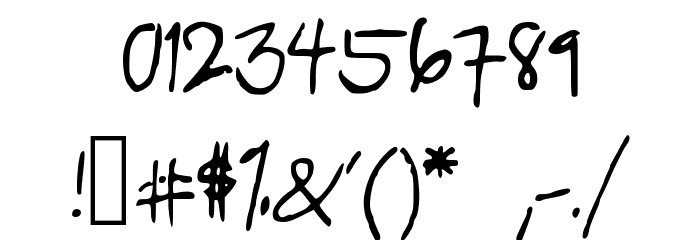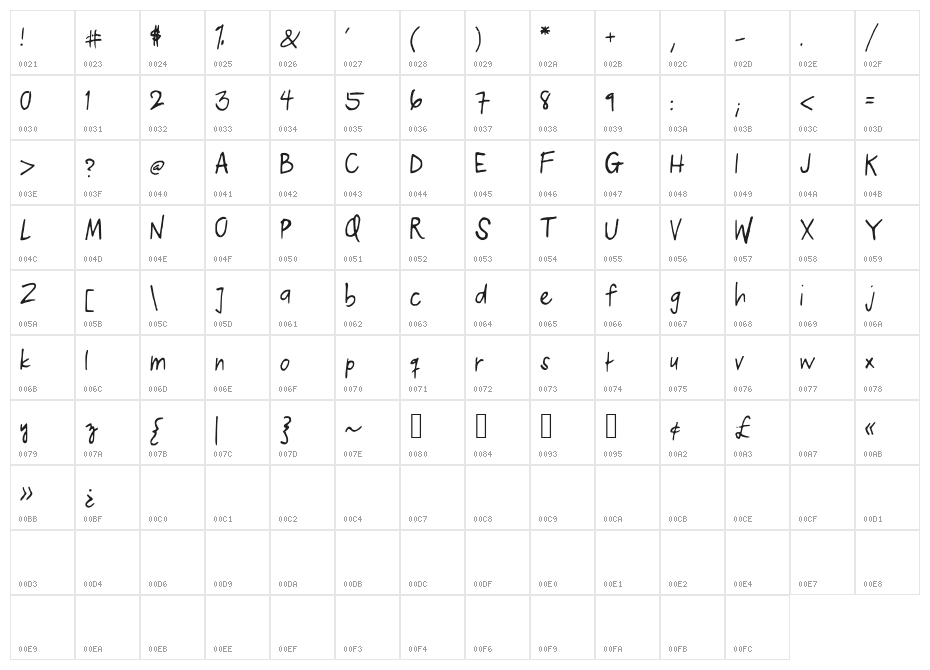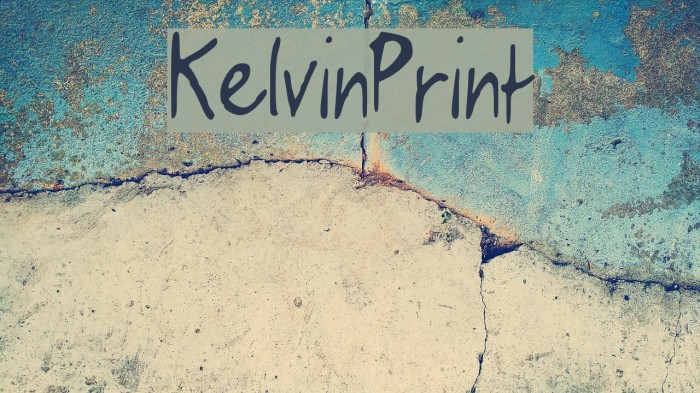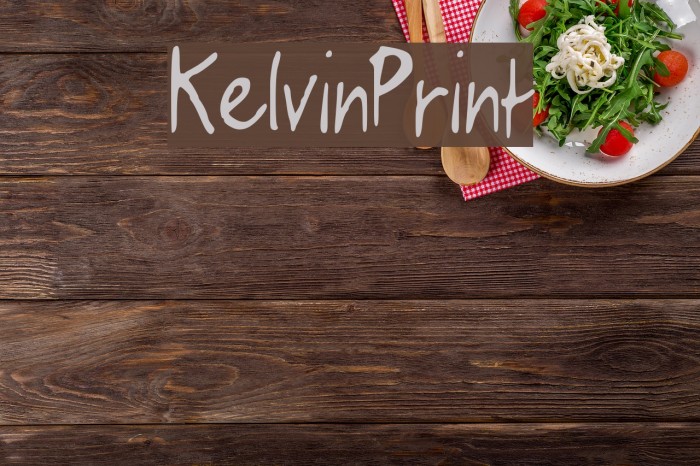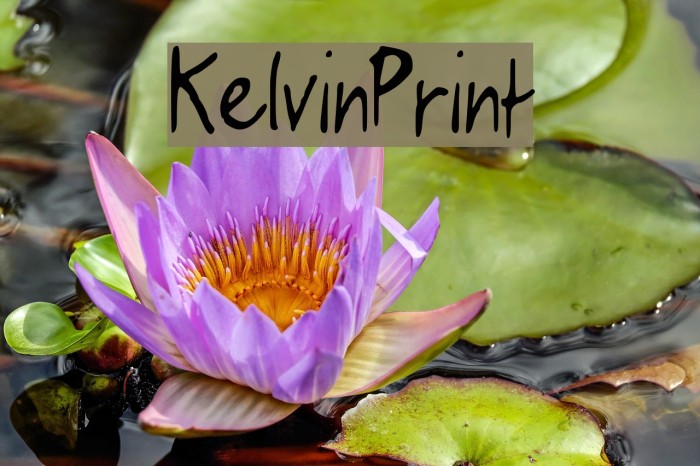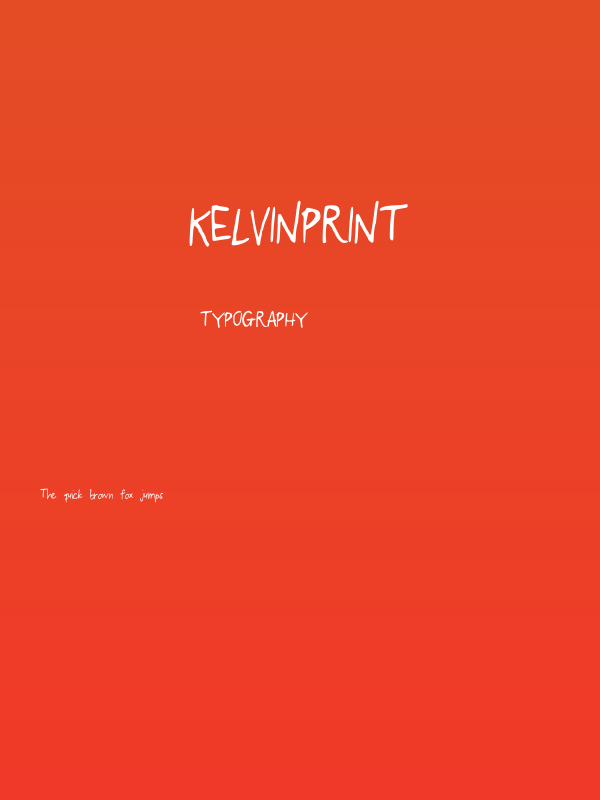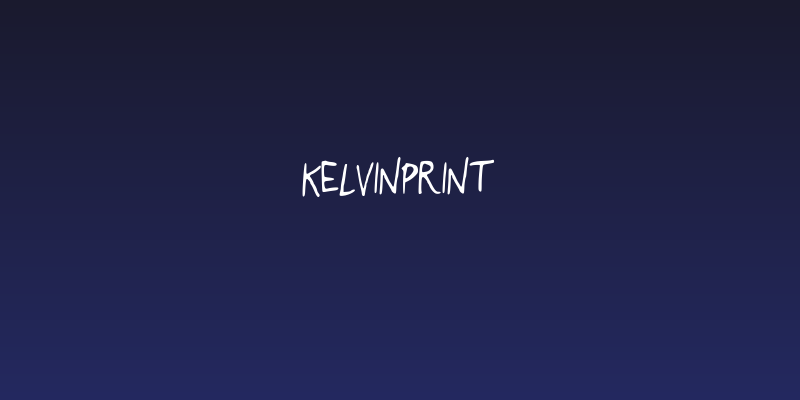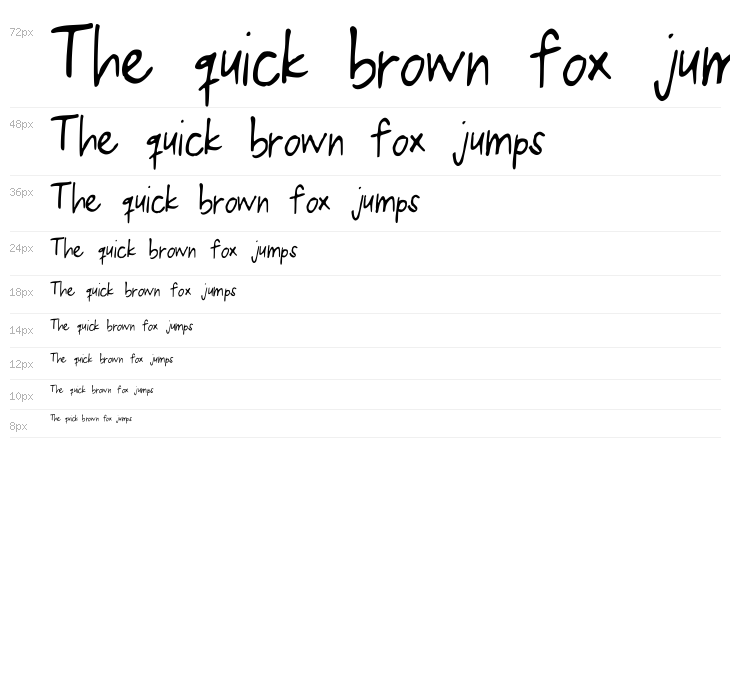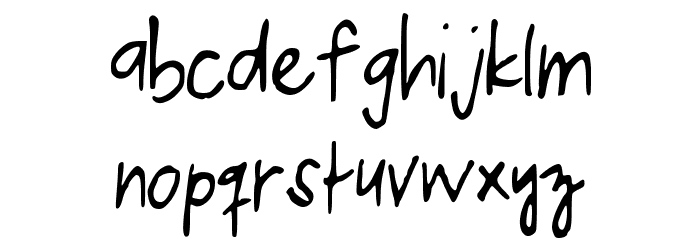
KelvinPrint Font
KelvinPrint Description
This font exhibits a playful and casual handwritten style, characterized by its uneven strokes and slightly irregular letterforms. The uppercase letters are bold and prominent, while the lowercase letters maintain a consistent flow, adding to the informal aesthetic. Numbers and special characters follow the same playful design, making the font versatile for creative projects. The overall appearance is approachable and friendly, suitable for designs that aim to convey a personal touch.
| Proposed Projects | Ideal for greeting cards, children's books, casual branding, and social media graphics. |